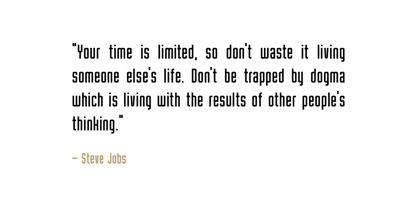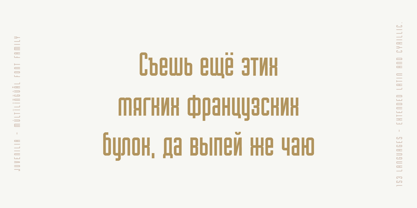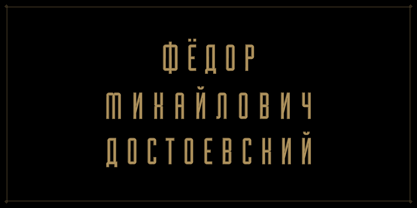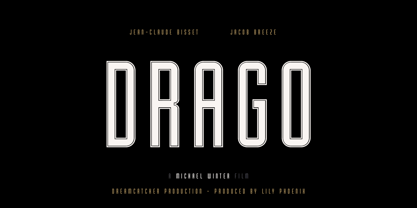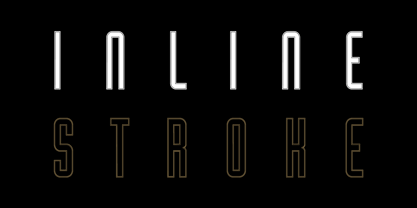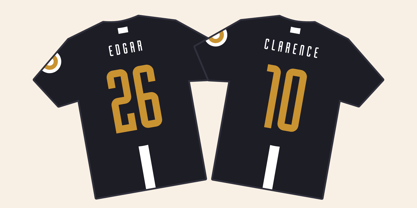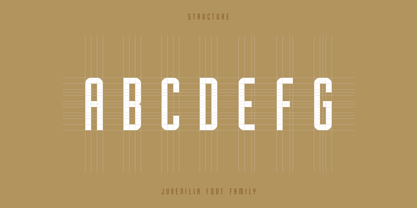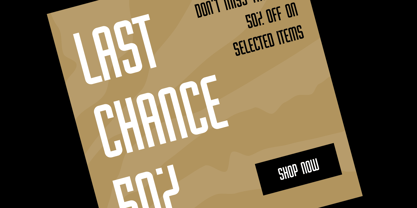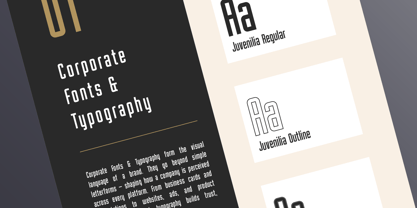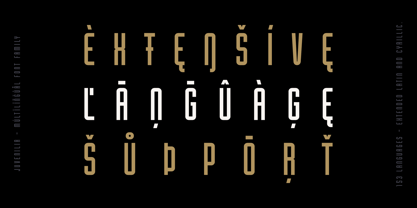
Juvenilia
by AlperCakici
The Juvenilia Font Family was designed by Alper Çakıcı and published by AlperCakici. Juvenilia contains 8 styles and family package options. More about this family
Juvenilia is a geometric sans with attitude — clean, confident, and built for impact. Its rounded precision and sharp geometry strike the perfect balance between modern minimalism and bold visual presence. With 8 carefully crafted styles, Juvenilia offers versatile creative control — from sleek inline and outline cuts to commanding ultra-black weights. Designed for both print and digital use, it delivers outstanding clarity and style across logos, headlines, posters, packaging, and branding. Every curve and counter is refined for visual harmony: balanced proportions, smooth connections, and a confident edge that stands out in any layout. ✨ Features: • 8 fonts — including Inline, Outline, Regular, Stroke and matching Italics • Clean geometric construction with a soft, modern aesthetic • Perfect for bold titles, elegant headers, and timeless visual identities • Supports 153 languages, including Cyrillic, Greek, and Extended Latin Juvenilia features precise kerning and meticulously tuned spacing for professional-quality typography in every context. Combining classic proportions with a contemporary geometric feel, it’s both versatile and distinctive — a typeface crafted for designers who value precision, clarity, and character. Juvenilia — where geometry meets personality.